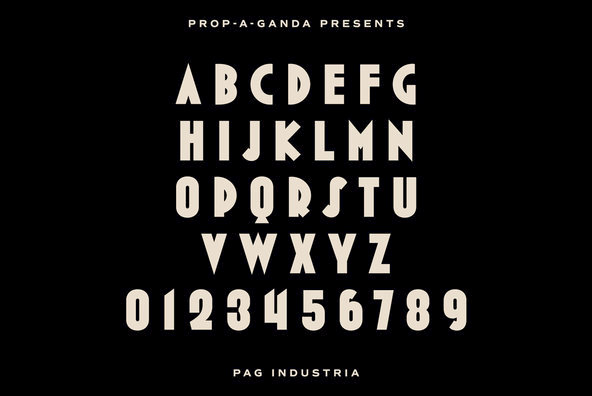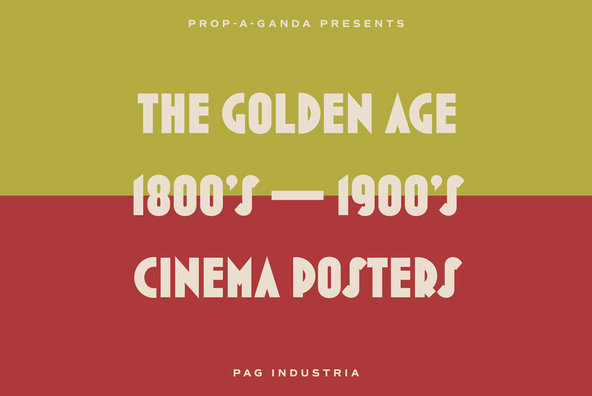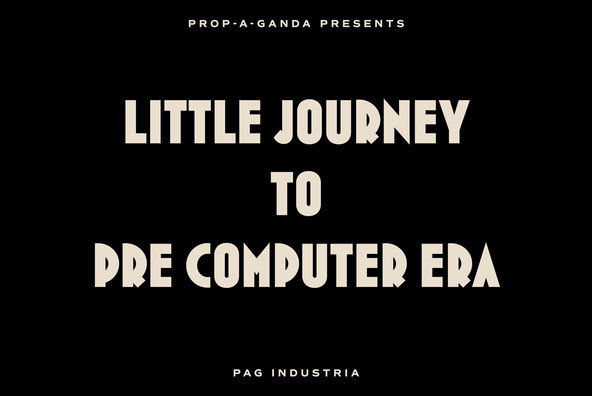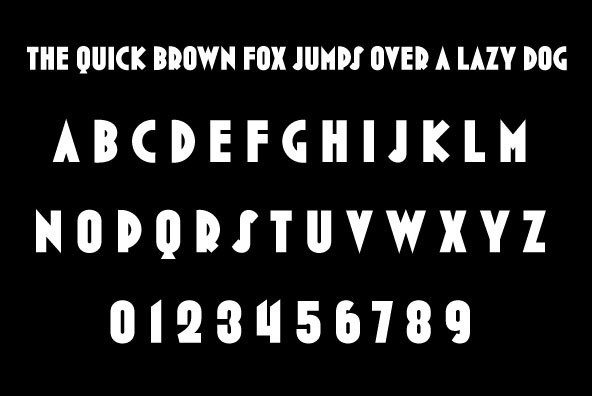
PAG Industria
Foundry: Ryoichi Tsunekawa
Inspired by and based on retro propaganda posters, movie posters, shopfront lettering & advertisements in the early 20th century.